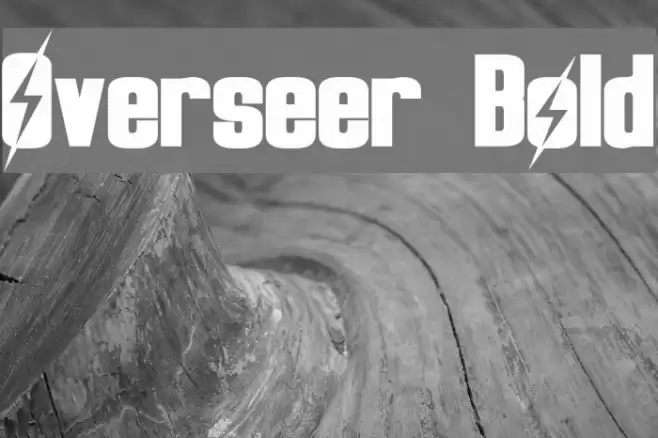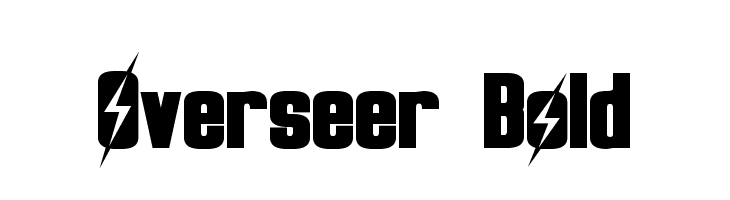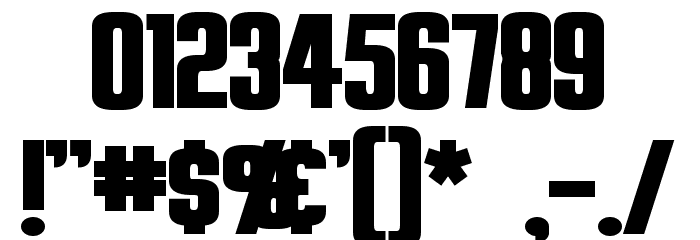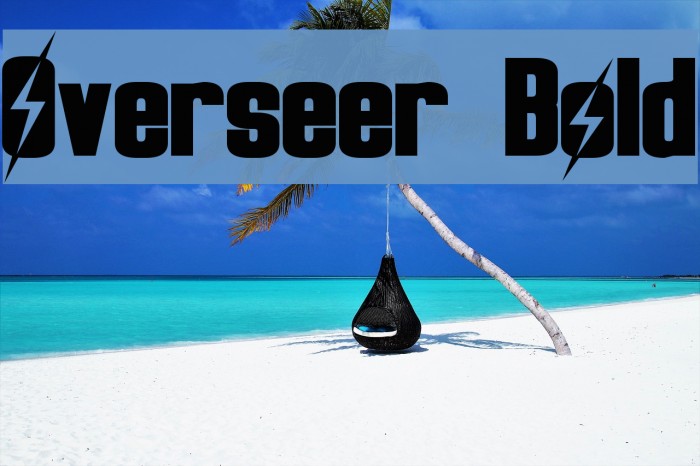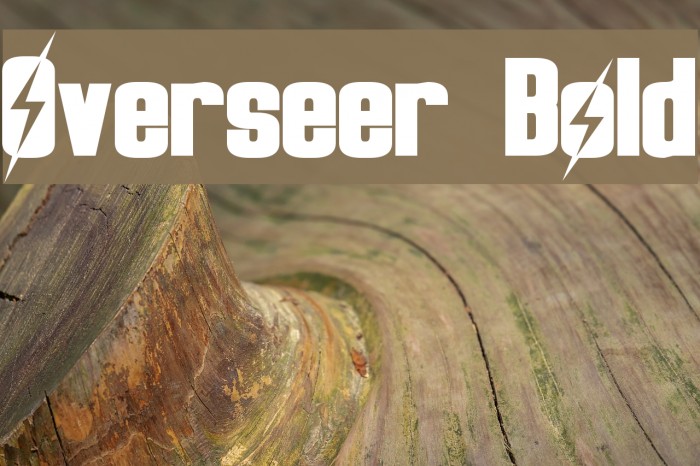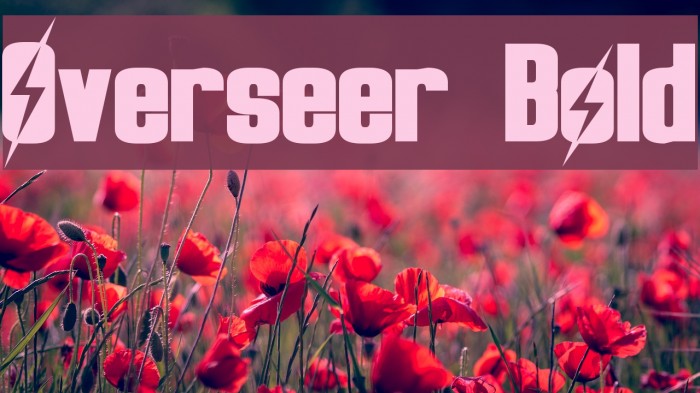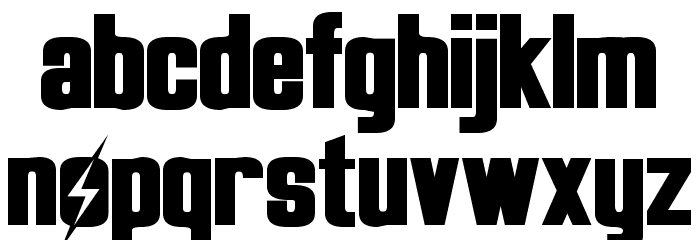
Overseer Bold Font
Overseer Bold Description
This font features a bold and impactful design, characterized by thick, uniform strokes that convey strength and authority. The uppercase letters are particularly striking, with a solid, block-like appearance. Notably, the letter 'N' incorporates a lightning bolt motif, adding a unique and dynamic element to the overall design. The lowercase letters maintain the boldness of the uppercase, ensuring consistency across text. Numbers are equally robust, making them ideal for attention-grabbing displays. Special characters are included, each designed to match the font's bold aesthetic. This font is perfect for projects that require a strong visual presence.
A bold, impactful font with a unique lightning bolt motif in the letter 'N' from Uncategorized fonts.